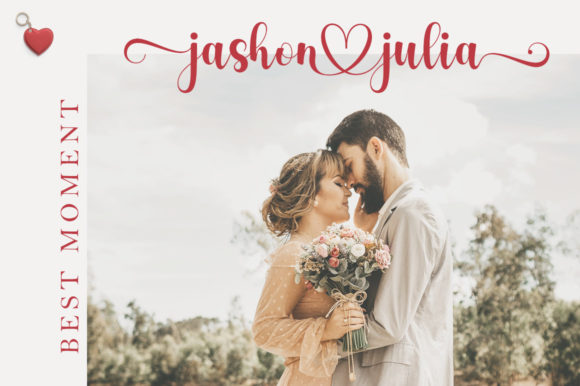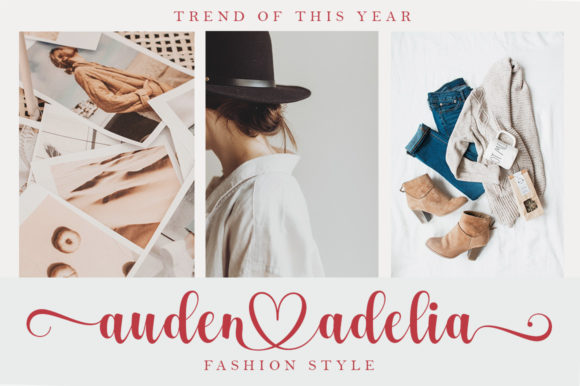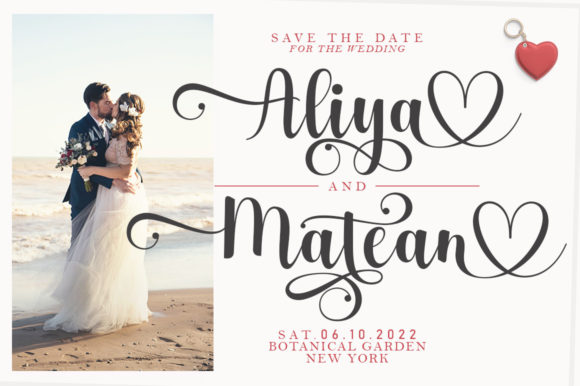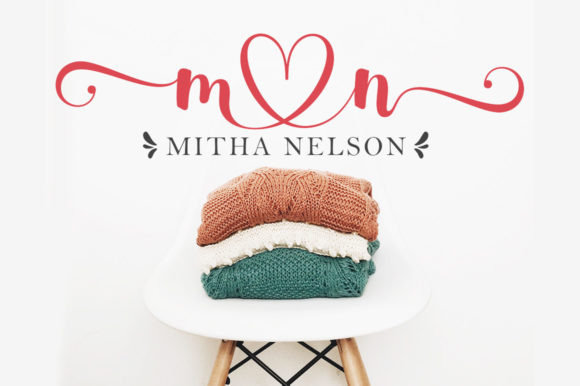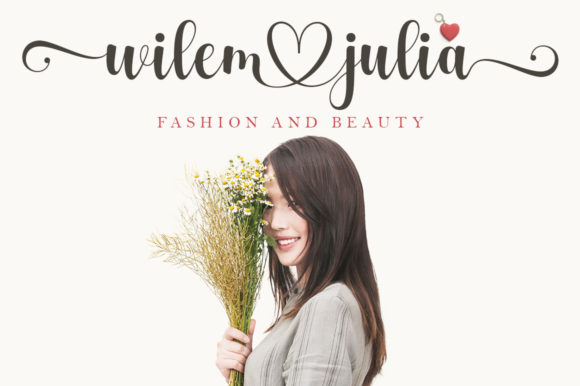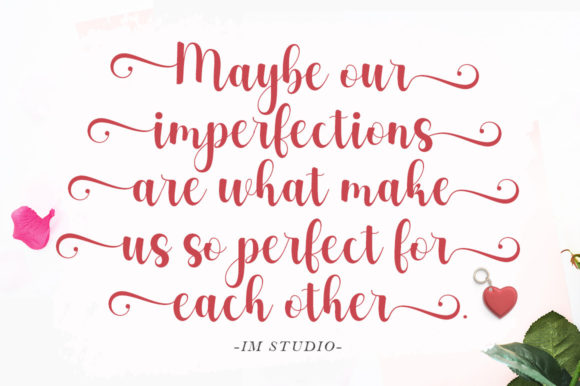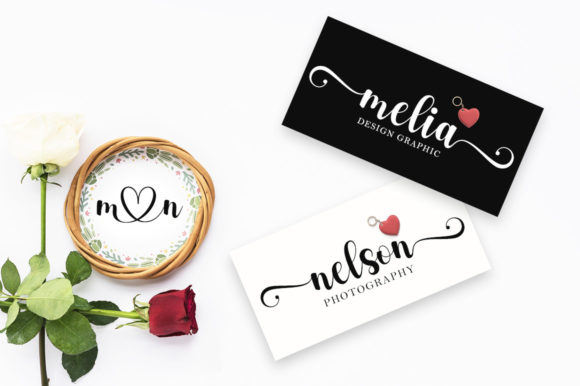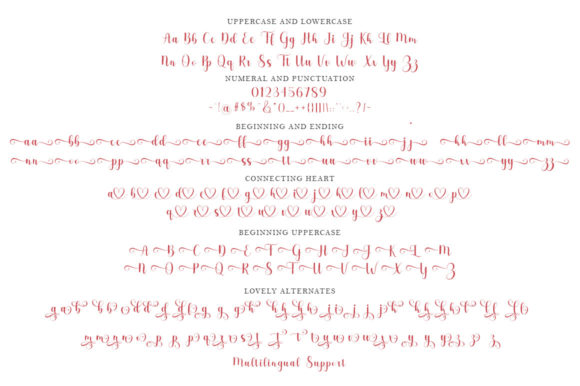
Hey Julia Font
About Hey Julia Font
Hey Julia is a script font that embodies loveliness and delicacy. Its elegant design makes it a perfect choice for a variety of applications. Whether it’s wedding invitations, thank you cards, quotes, greeting cards, logos, business cards, or any other design that requires a handwritten touch, Hey Julia is sure to impress.
The charm of Hey Julia lies in its ability to add a personal and intimate feel to any design. Its elegant script style is reminiscent of handwritten letters, giving your designs a touch of nostalgia and warmth. This makes it an excellent choice for projects that aim to evoke feelings of elegance, sophistication, and intimacy.
Moreover, Hey Julia is PUA encoded, which means you can easily access all of its amazing glyphs and ligatures. This feature allows you to explore a wide range of design possibilities and add a unique touch to your projects. Whether you’re looking to create elegant headlines, captivating logos, or expressive text, Hey Julia’s glyphs and ligatures can help you achieve your design goals.
In conclusion, Hey Julia is more than just a font. It’s a design tool that can add a touch of elegance and sophistication to your designs. Its stylish script style and versatility make it a valuable asset for any designer. So, why wait? Incorporate Hey Julia into your design today and witness the transformation. Experience the difference that a truly elegant and simple font can make. Experience Hey Julia.
With Hey Julia, you’re not just choosing a font. You’re choosing a font that will make your design stand out, a font that will add character to your text, and a font that will leave a lasting impression on your audience. Choose Hey Julia, and let your design speak for itself.
So, if you’re looking for a font that’s lovely, delicate, and has aesthetic value, look no further than Hey Julia. It’s the perfect font for any design project, and it’s sure to make your design stand out. Try Hey Julia today, and see the difference it can make in your design.